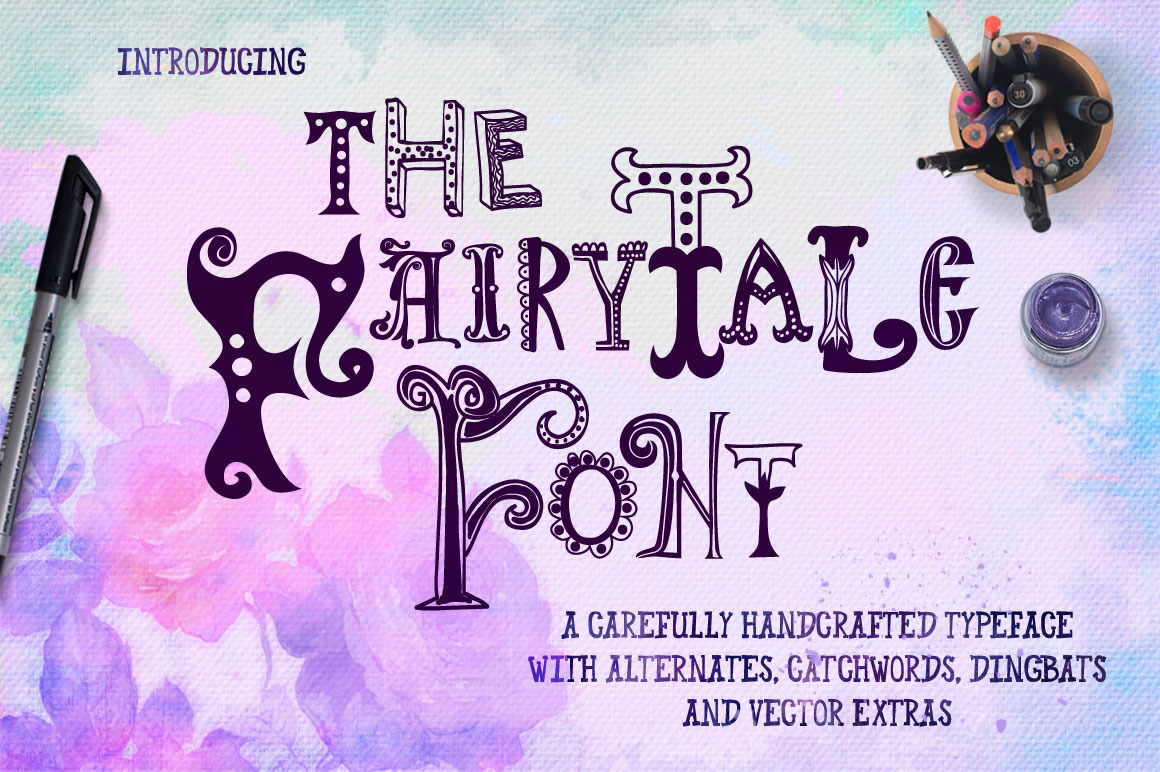
Fairy Tale Font with Extras
Introducing The Fairy Tale Font with Extras, a whimsical hand drawn font with two alternates for uppercase glyphs, one for lowercase glyphs, catchwords, dingbats and vector graphics file.
The creation of this font started years ago, when I was given a task to illustrate several famous fairy tales, including Cinderella, Little Red Riding Hood and Lewis Carroll's novel Alice in Wonderland.
I felt I needed a more playful, rules-breaking, nonsensical type than what was available in 2010. So I drew the glyphs as needed, along with the storybook characters. They were such a success that I decided to make sets and, in 2012, offered them for use to other designers as vector stock files (see http://www.vectorzine.com/photo/MzAyN2I5OWJhZWViMQ==/hand-drawn-alphabet.html and related illustrations).
This is the first time I have gathered all those glyphs, added new ones and made it into a proper typeface, effectively making THREE wonky display typefaces folded into one, with loads of extras.
The Fairy Tale Font makes it easy to create unique art and add fun to creating greeting cards, flyers, posters and products for sale.
- Fairy Tale Font with two sets of alternates for uppercase glyphs and one set of alternates for lowercase glyphs (glyphs panel needed to be able to see and use the alternates);